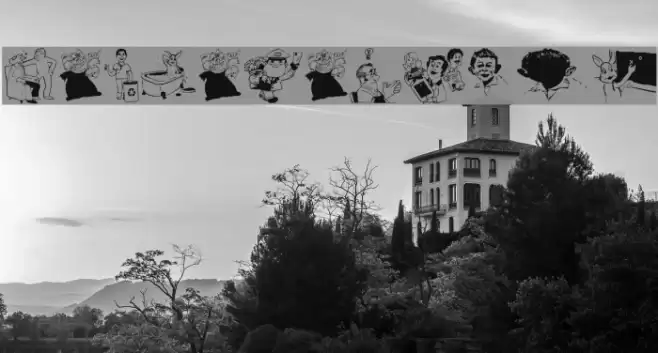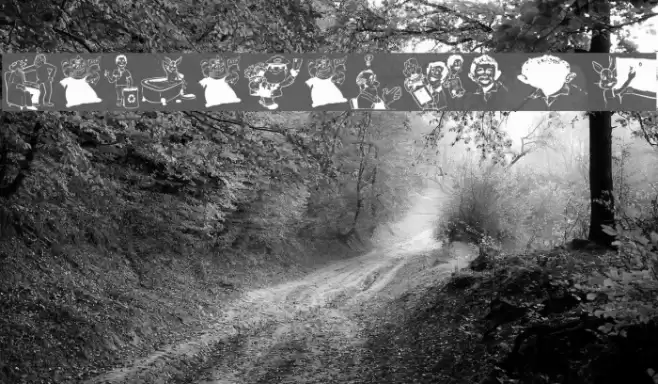
Fontoholics Font
Fontoholics Description
A highly decorative and playful font composed entirely of cartoon-style character illustrations, each glyph representing a unique, whimsical figure or scene rather than traditional letterforms.
Cartoonish, illustrative font with each character as a unique drawing from Cartoon fonts.
- Proposed Projects: Children’s books, comic strips, party invitations, playful branding, educational materials.
- Overall Style: Decorative, Playful, Cartoonish
- Use Case: Logos, Posters, Headlines, Themed graphics